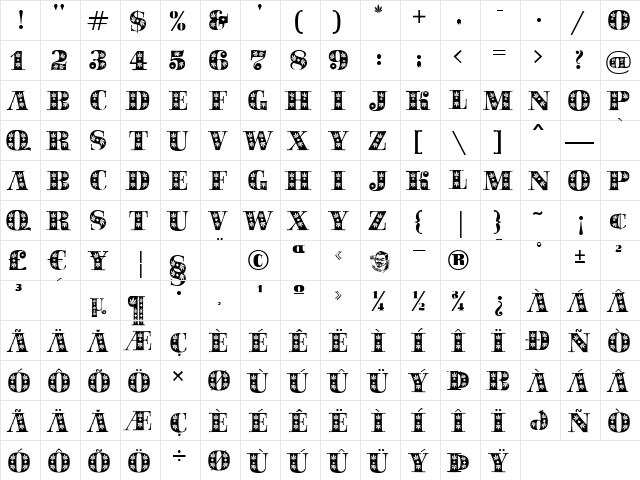
SapphireSativa Regular Font Preview
SapphireSativa Regular
SapphireSativa Regular Font Details
Design Context for SapphireSativa Typeface
SapphireSativa is a composed and adaptable typeface that performs quietly and consistently across a wide range of design contexts.